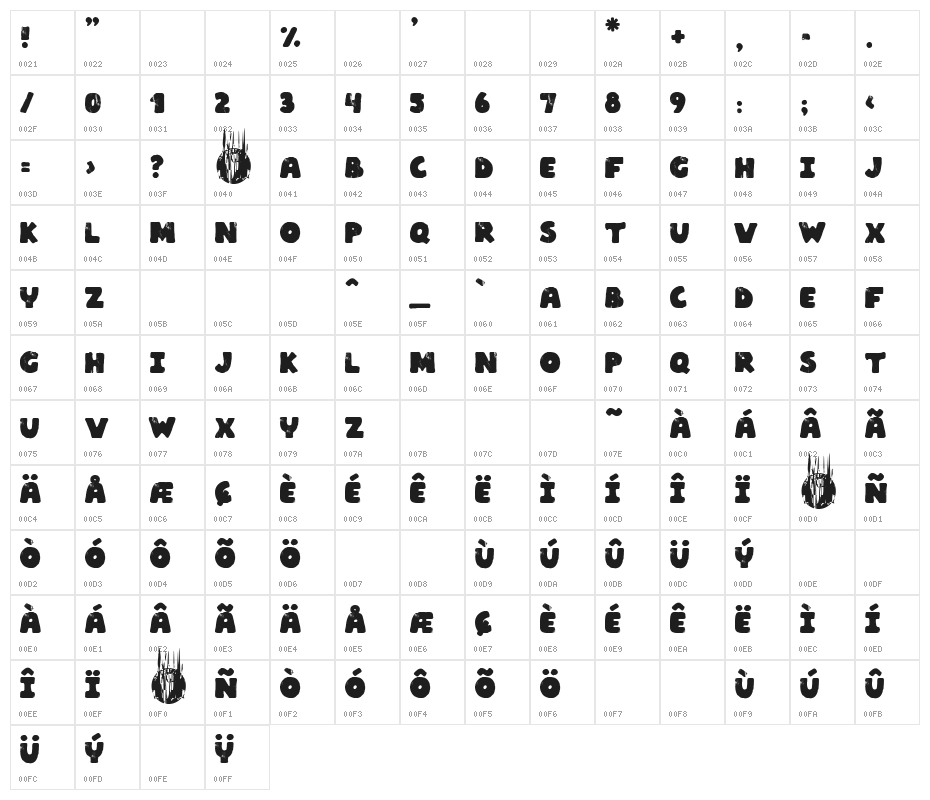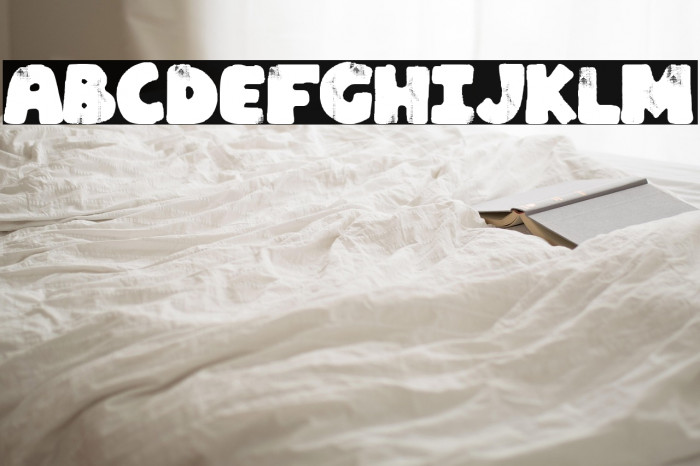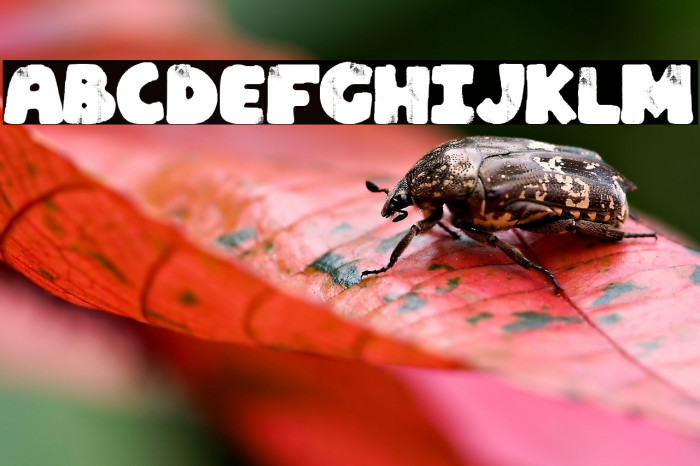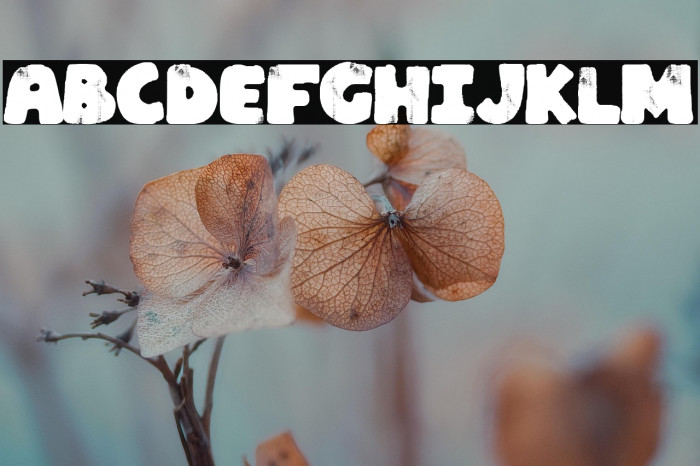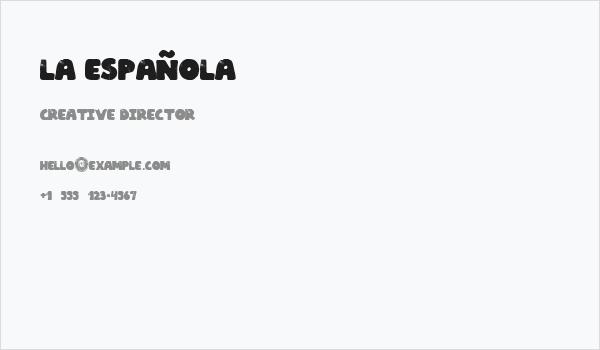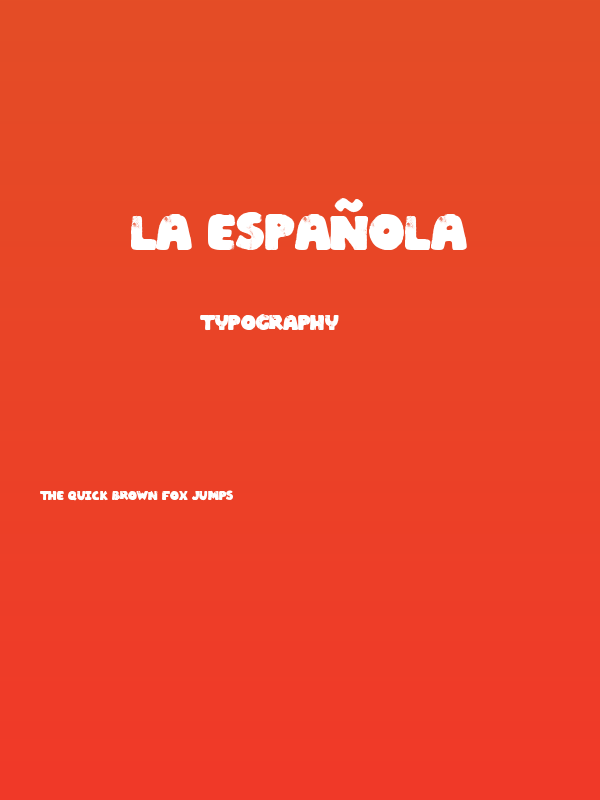
La Española Font
La Española Description
This font features a bold and distressed style, giving it a rugged and vintage appearance. The characters are thick and heavy, with a textured, worn-out look that adds a sense of history and character. The uppercase and lowercase letters maintain a consistent weight, while the numbers and special characters follow the same distressed pattern. The overall design is eye-catching and impactful, making it suitable for projects that require a strong visual presence. The texture within each character varies, creating a dynamic and engaging visual effect.
| Proposed Projects | Ideal for posters, branding, album covers, and any design needing a bold, vintage aesthetic. |